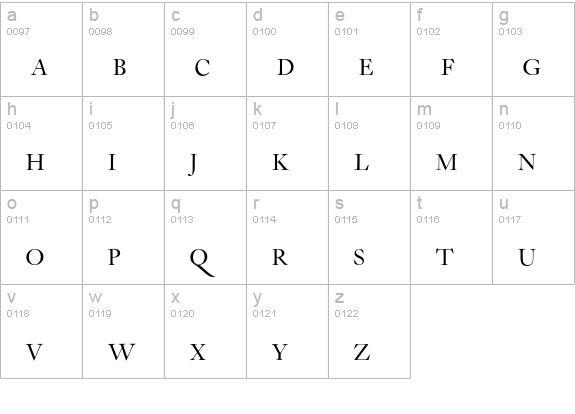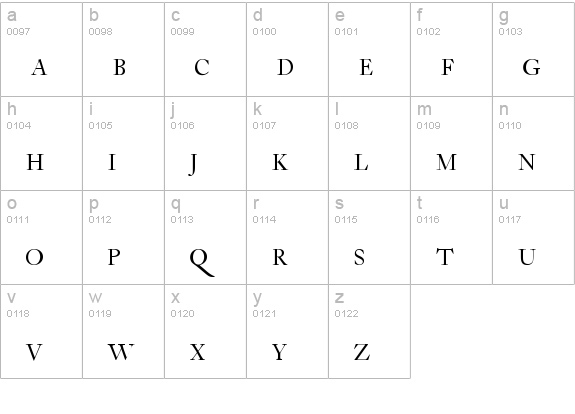
CaslonC437-RomanSmallCaps is a classic and elegant font that exudes sophistication and timeless charm. With its small caps style, this font is perfect for adding a touch of refinement to any design project. The clean lines and intricate details of CaslonC437-RomanSmallCaps make it a versatile choice for a variety of applications, from invitations to branding materials. What's even better is that CaslonC437-RomanSmallCaps is available for free download at FontsMarket.com. This means that you can easily access this beautiful font and incorporate it into your projects without any cost. Whether you're a designer looking to elevate your creations or simply someone who appreciates the beauty of typography, CaslonC437-RomanSmallCaps is a fantastic choice that won't break the bank. Download it today and add a touch of sophistication to your next project.